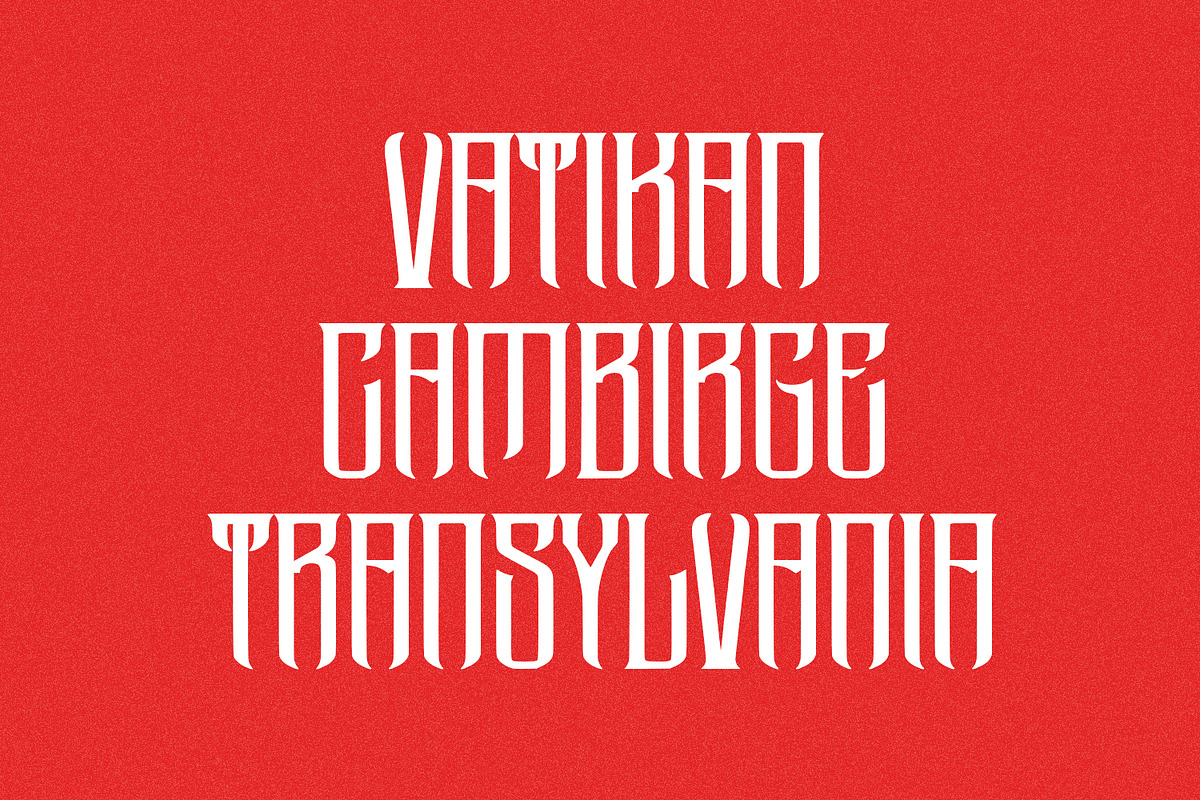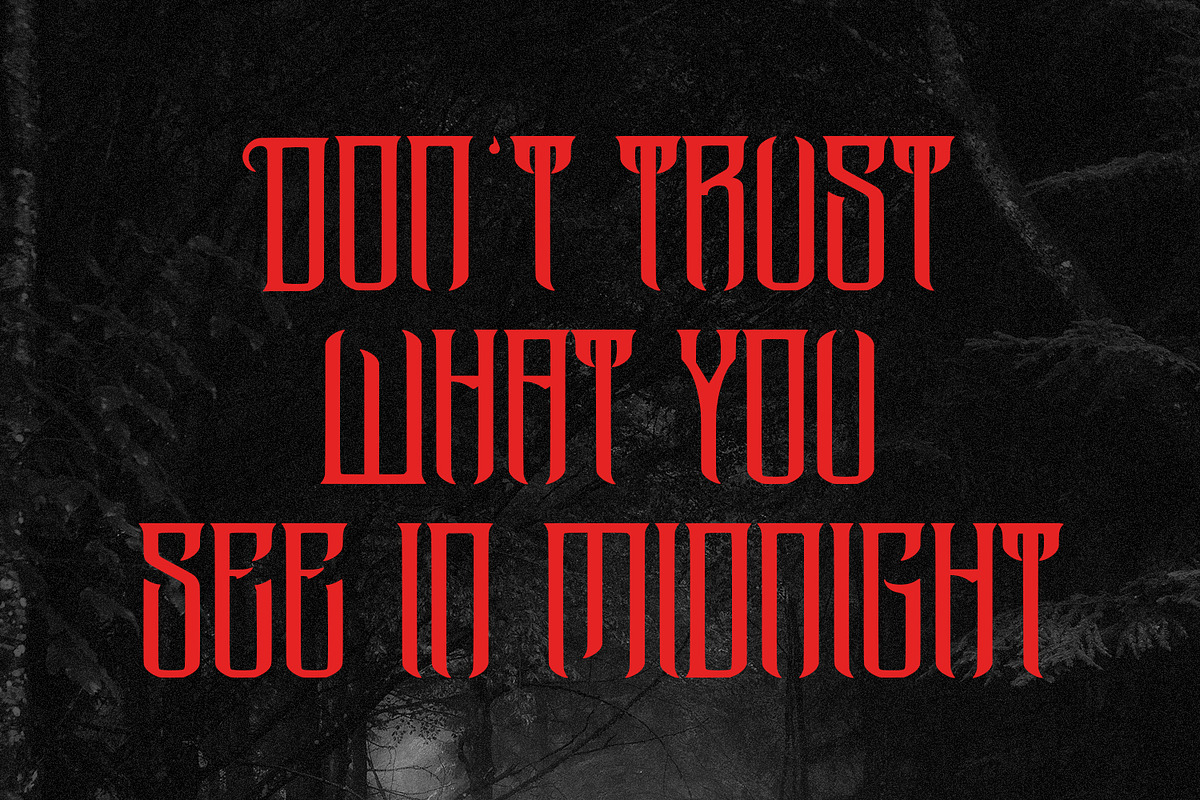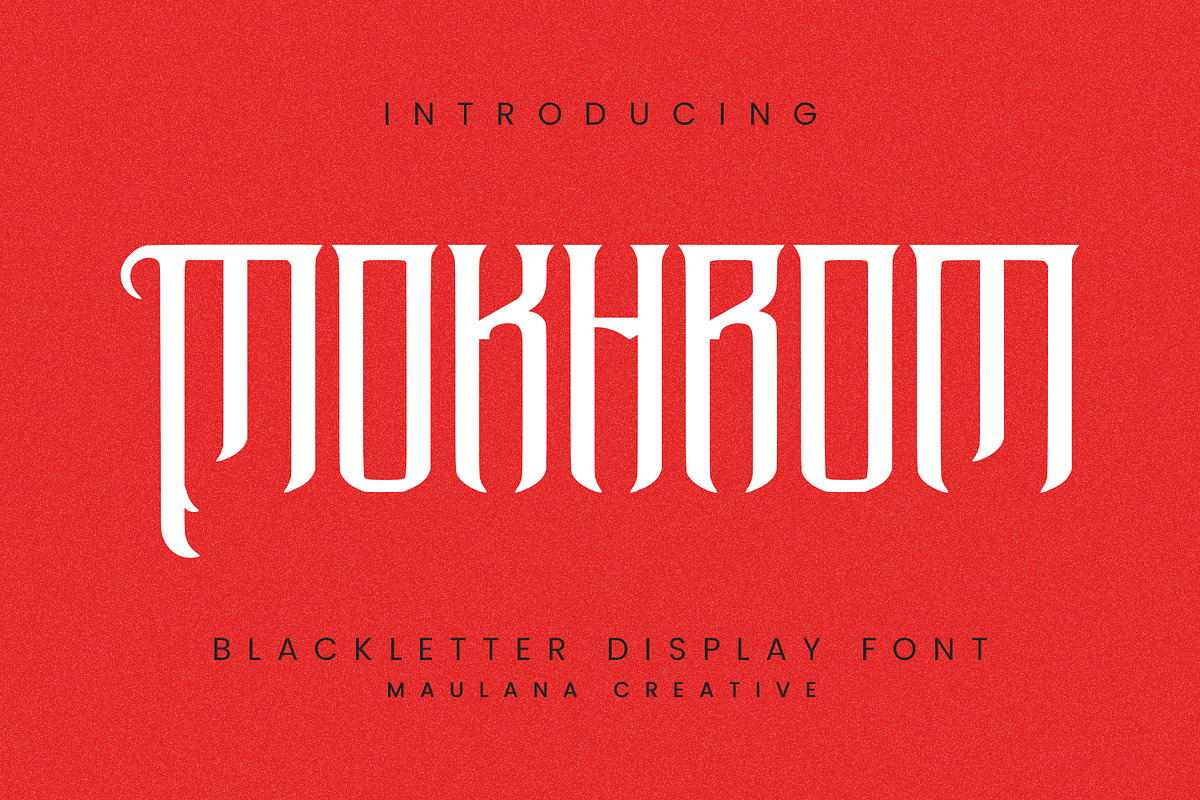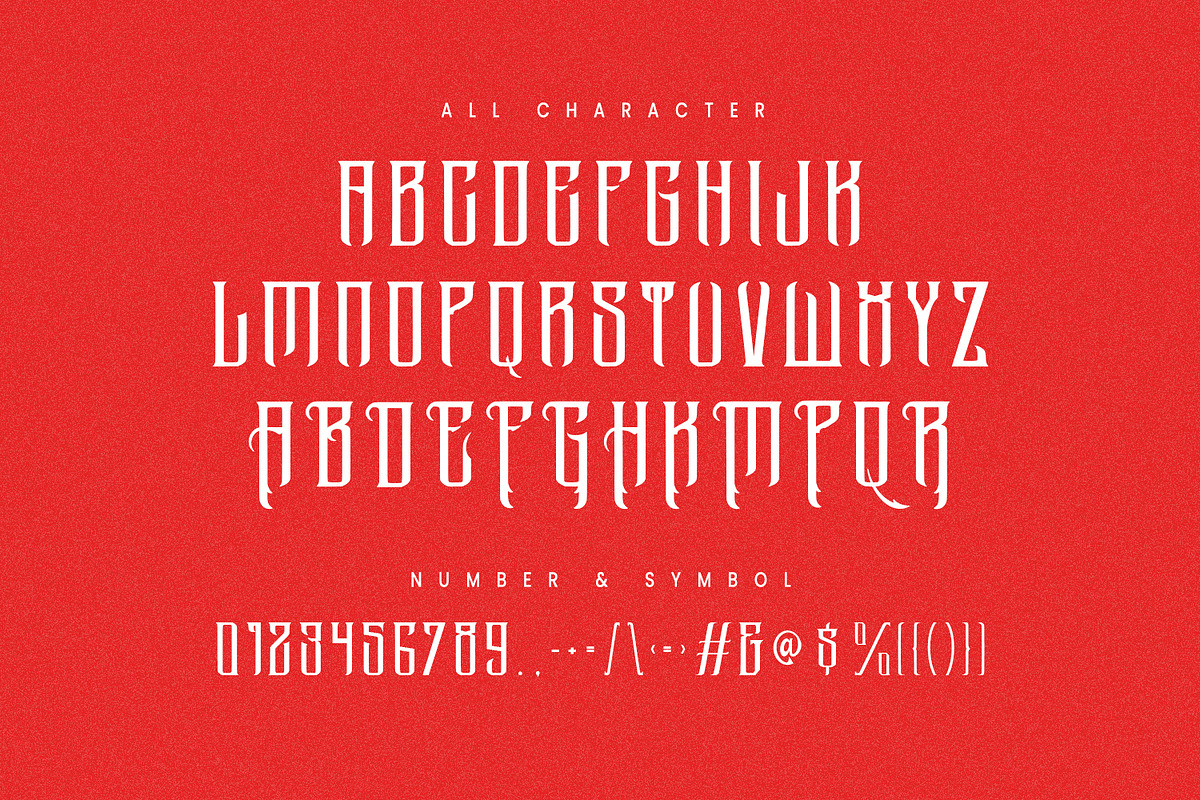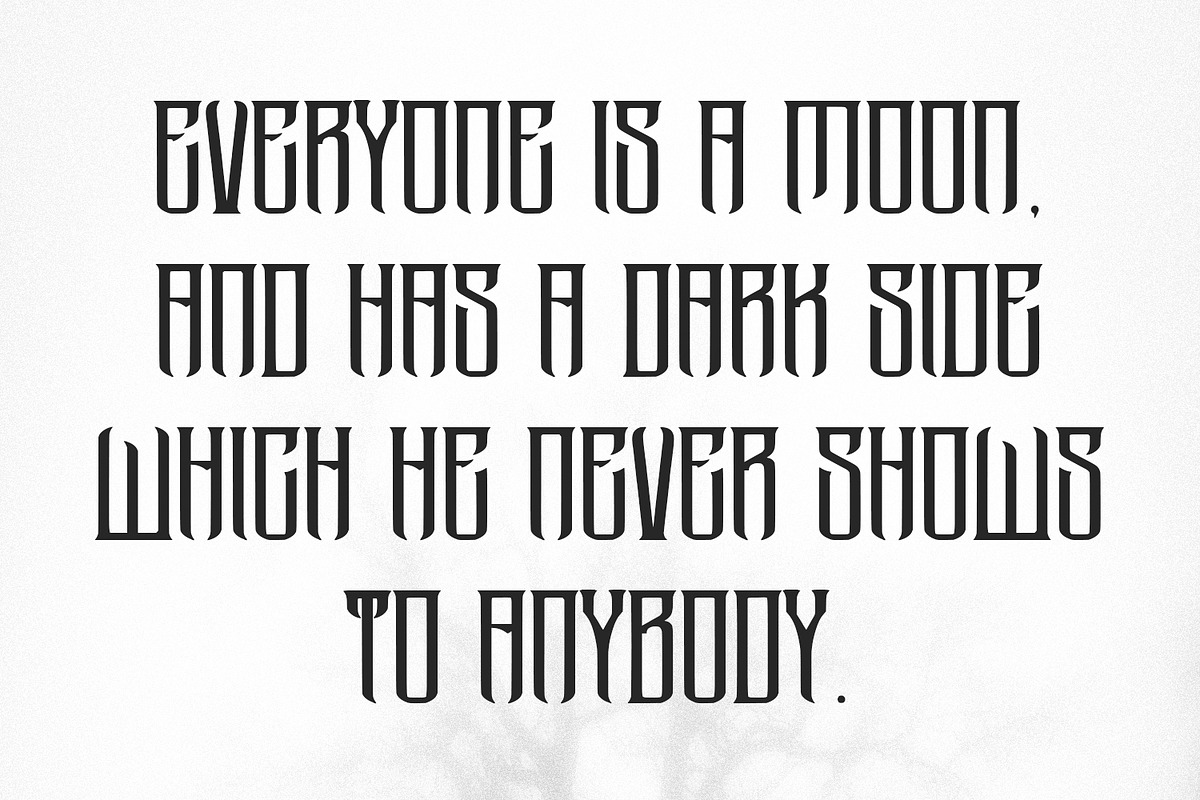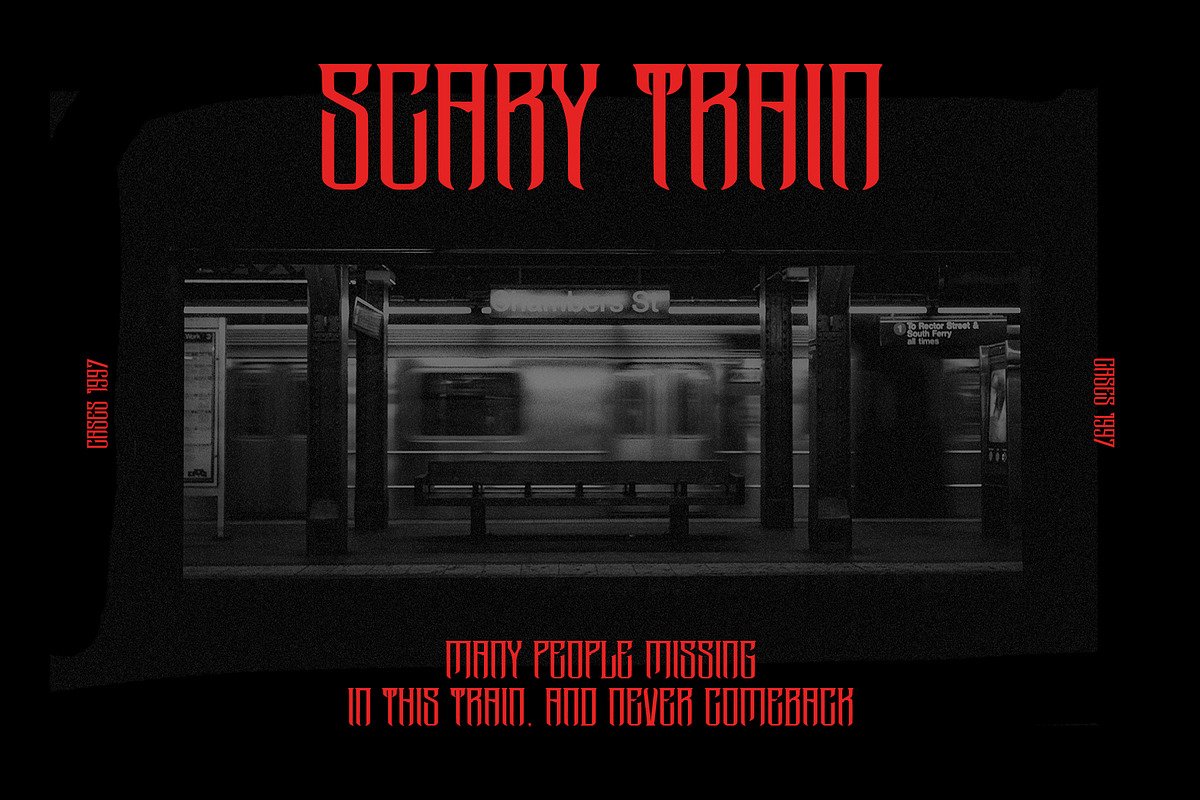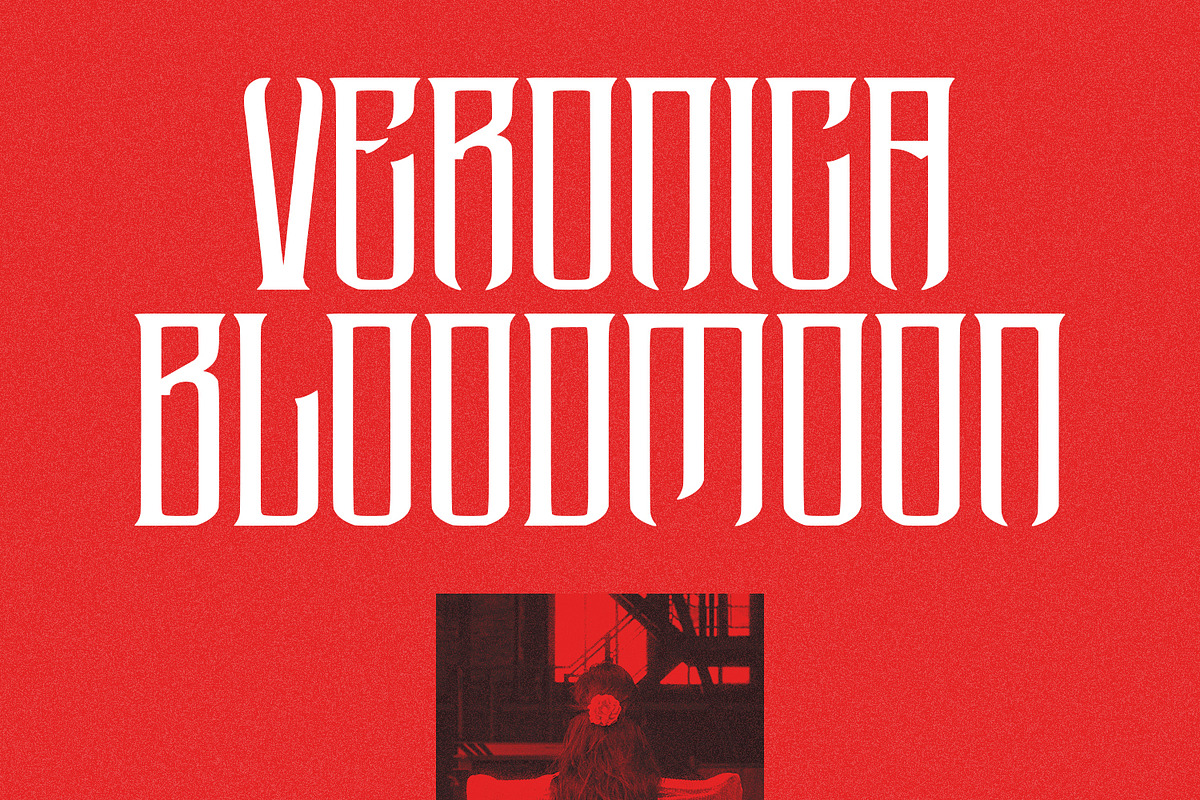
Mokhrom Blackletter Horror Font
Mokhrom blackletter horror display font. Heavy stroke, vintage character with alternates. To give you an extra creative work. Mokhrom blackletter display font support multilingual language. This font is good for logo design, Social media, Movie Titles, Books Titles, a short text even a long text letter and good for your secondary text font with script or serif. Make a stunning work with Mokhrom blackletter font.